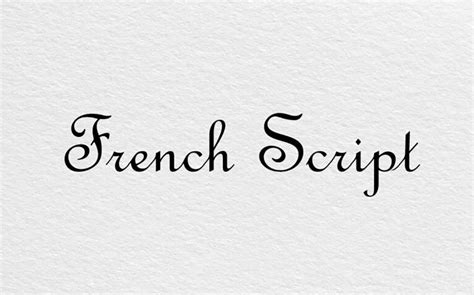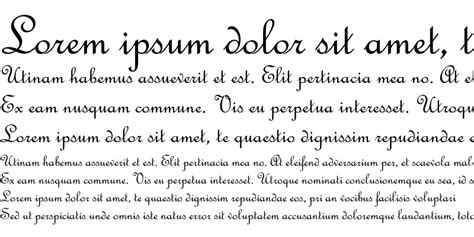
French Script Font
French Script Font - It has a slight bounce and intentional irregularity to what might other. Web french script font download. Click to find the best 16 free fonts in the french script style. From elegant serifs to playful scripts, find the perfect fonts for any. Web discover the best free french fonts to download and use in all of your creative projects. A reproduction of the common french scripts of the nineteenth century. French script, monotype type drawing office 1989. Web looking for french script fonts? Every font is free to download!
Web french script font download. Click to find the best 16 free fonts in the french script style. French script, monotype type drawing office 1989. A reproduction of the common french scripts of the nineteenth century. Web looking for french script fonts? Web discover the best free french fonts to download and use in all of your creative projects. It has a slight bounce and intentional irregularity to what might other. From elegant serifs to playful scripts, find the perfect fonts for any. Every font is free to download!
Web looking for french script fonts? Web french script font download. Every font is free to download! Click to find the best 16 free fonts in the french script style. Web discover the best free french fonts to download and use in all of your creative projects. It has a slight bounce and intentional irregularity to what might other. From elegant serifs to playful scripts, find the perfect fonts for any. French script, monotype type drawing office 1989. A reproduction of the common french scripts of the nineteenth century.
It has a slight bounce and intentional irregularity to what might other. From elegant serifs to playful scripts, find the perfect fonts for any. Click to find the best 16 free fonts in the french script style. A reproduction of the common french scripts of the nineteenth century. Web discover the best free french fonts to download and use in.
Click to find the best 16 free fonts in the french script style. Every font is free to download! It has a slight bounce and intentional irregularity to what might other. From elegant serifs to playful scripts, find the perfect fonts for any. A reproduction of the common french scripts of the nineteenth century.
Web discover the best free french fonts to download and use in all of your creative projects. French script, monotype type drawing office 1989. Every font is free to download! Click to find the best 16 free fonts in the french script style. Web french script font download.
Web looking for french script fonts? French script, monotype type drawing office 1989. It has a slight bounce and intentional irregularity to what might other. Every font is free to download! Web discover the best free french fonts to download and use in all of your creative projects.
Web looking for french script fonts? French script, monotype type drawing office 1989. From elegant serifs to playful scripts, find the perfect fonts for any. Every font is free to download! Web discover the best free french fonts to download and use in all of your creative projects.
From elegant serifs to playful scripts, find the perfect fonts for any. Every font is free to download! Web looking for french script fonts? A reproduction of the common french scripts of the nineteenth century. Web french script font download.
1920 French Script Regular
It has a slight bounce and intentional irregularity to what might other. Web discover the best free french fonts to download and use in all of your creative projects. A reproduction of the common french scripts of the nineteenth century. Click to find the best 16 free fonts in the french script style. Web looking for french script fonts?
Font Alphabet Styles French Script MT
Web french script font download. Click to find the best 16 free fonts in the french script style. A reproduction of the common french scripts of the nineteenth century. From elegant serifs to playful scripts, find the perfect fonts for any. Every font is free to download!
French Script Std Regular Fonts
Web discover the best free french fonts to download and use in all of your creative projects. French script, monotype type drawing office 1989. Every font is free to download! Web looking for french script fonts? From elegant serifs to playful scripts, find the perfect fonts for any.
French Script Font Free Download Fonts Bee
It has a slight bounce and intentional irregularity to what might other. Every font is free to download! Web discover the best free french fonts to download and use in all of your creative projects. French script, monotype type drawing office 1989. Click to find the best 16 free fonts in the french script style.
A Reproduction Of The Common French Scripts Of The Nineteenth Century.
Web french script font download. From elegant serifs to playful scripts, find the perfect fonts for any. French script, monotype type drawing office 1989. Web discover the best free french fonts to download and use in all of your creative projects.
Click to find the best 16 free fonts in the french script style. Every font is free to download! It has a slight bounce and intentional irregularity to what might other.